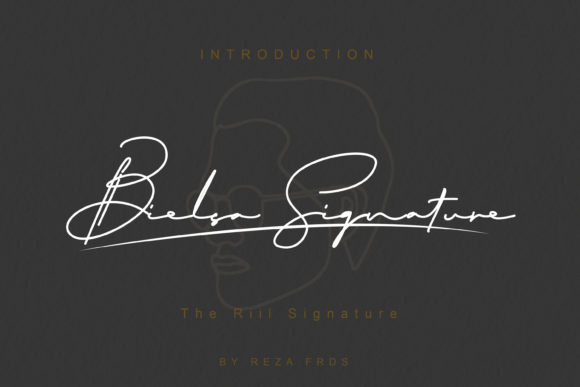
Bielsa Signature Font
Dive into the world of creativity with Bielsa Signature Font - a captivating script calligraphy font that breathes life into your designs. Its free-flowing, elegant strokes add a touch of sophistication and charm to any project.
Unleash your imagination and embark on a journey of artistic expression with Bielsa Signature Font. Whether you're creating breathtaking wedding invitations, eye-catching posters, or personalized logos, this font delivers a unique and unforgettable touch.
Immerse yourself in a plethora of design possibilities with Bielsa Signature Font. Its versatility extends beyond traditional applications, making it the perfect choice for tattoos, branding, and packaging designs. Let your creativity soar and explore the endless possibilities that await you.
With Bielsa Signature Font, you'll discover a font that effortlessly combines beauty, functionality, and endless creative potential. Its remarkable character set, featuring both uppercase and lowercase letters, ligatures, and alternates, offers unmatched flexibility and customization.
Elevate your designs to new heights with Bielsa Signature Font. Experience the joy of creating captivating visuals that resonate with your audience and leave a lasting impression. Unlock the power of exceptional typography and make your designs stand out in a sea of mediocrity.